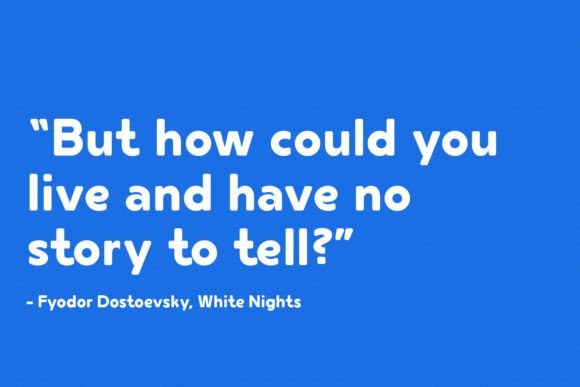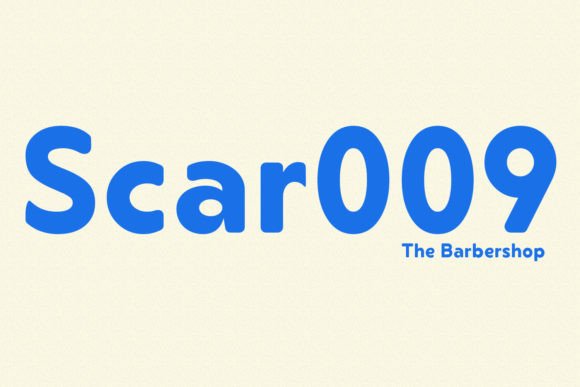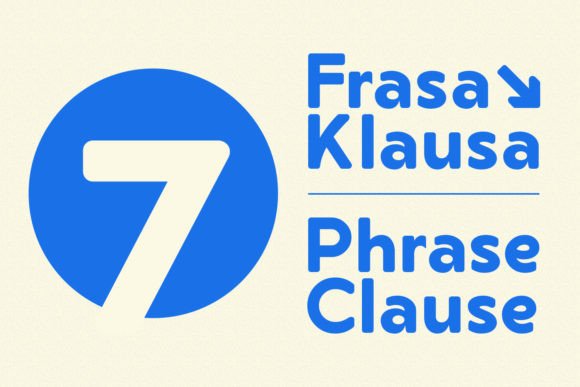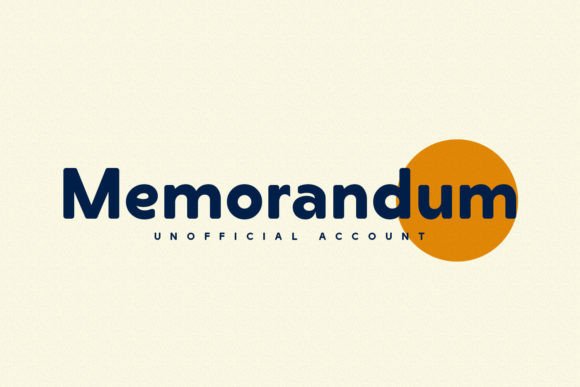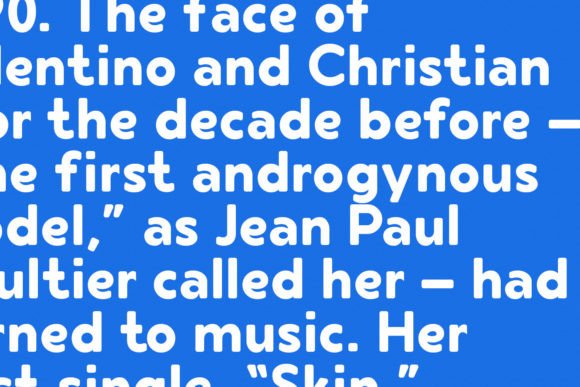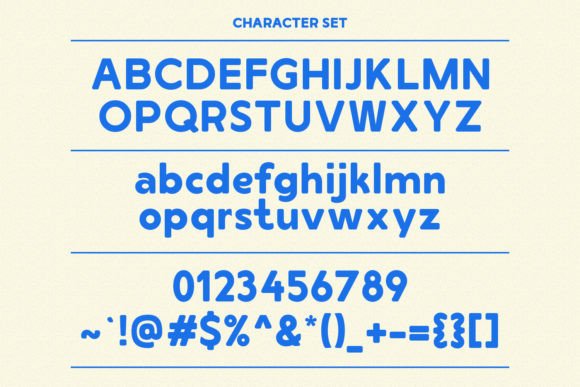
Gulka Font: The Ultimate Contemporary Sans Serif for Modern Designs
In the world of typography, fonts play a crucial role in conveying the message and aesthetic of a design. With the ever-evolving trends in graphic design, it’s essential to have a font that is both contemporary and versatile. Introducing Gulka Font, a fresh sans serif font that is perfect for a wide spectrum of applications. In this article, we’ll dive into the features and benefits of Gulka Font, making it a must-have for designers and crafters.
What is Gulka Font?
Gulka Font is a modern sans serif font designed to cater to the needs of contemporary designs. Its clean lines, simple shapes, and fresh feel make it an ideal choice for designers looking for a font that is both trendy and timeless. The font features a unique blend of elegance and playfulness, making it perfect for a wide range of applications, from branding and advertising to packaging and digital media.
Key Features of Gulka Font
- Contemporary and Fresh Design: Gulka Font boasts a modern design that is both stylish and sophisticated. Its clean lines and simple shapes give it a fresh feel that is sure to grab attention.
- Trendiness: The font features the right amount of trendiness, making it perfect for designs that require a modern twist.
- Versatility: Gulka Font is designed to be versatile, making it suitable for a wide range of applications, from print to digital media.
- Ease of Readability: The font is optimized for readability, ensuring that your message is conveyed clearly and effectively.
Benefits of Using Gulka Font
- Enhance Your Brand’s Visual Identity: With Gulka Font, you can create a unique and recognizable visual identity for your brand that sets you apart from the competition.
- Improve Readability: The font’s optimized readability ensures that your message is conveyed clearly, making it perfect for body text and headings.
- Increase Engagement: The modern and fresh design of Gulka Font is sure to grab attention and increase engagement with your audience.
Who Can Benefit from Gulka Font?
In conclusion, Gulka Font is a contemporary and fresh sans serif font that is perfect for modern designs. Its unique blend of elegance and playfulness, combined with its versatility and readability, make it an excellent choice for designers and crafters. Whether you’re working on branding, advertising, packaging, or digital media, Gulka Font is sure to elevate your designs and engage your audience.